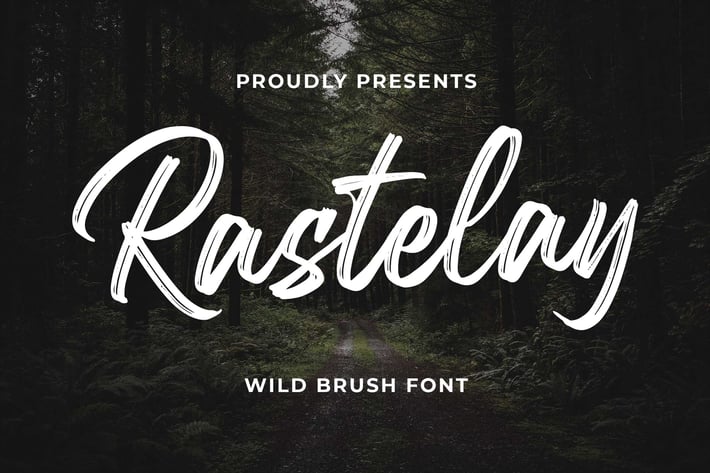
Rastelay Wild Brush Font
Introducing of our new product the name is Rastelay Wild Brush Font. Rastelay inspired by brush script this font is a fun theme very good for book cover, apparel, t-shirt, quote, logotype, craft and etc.
MULTILINGUAL ACCENT :
ØÆøæ¢ÐŒœÁĂÂÀÄĄÅÃǼĆČÇĈĊĎÉĔĚÊËĖÈĘĞĜĢĠĤÍĬÎÏİÌĮĨĴĶĹĽĻĿŃŇŅÑÓŎÔÖÒŐǾÕŔŘŖŚŠŞŜȘŤŢÚŬÛÜÙŰŲŮŨẂŴẄẀÝŶŸỲŹŽŻáăâäàąåãǽćčçĉċďéĕěêëėèęğĝģġĥíîïìįĩĵķĺľļŀńʼnňņñóŏôöòőǿõŕřŗśšşŝșťţŭûüűùųůũẃŵẅẁýŷÿỳźžż